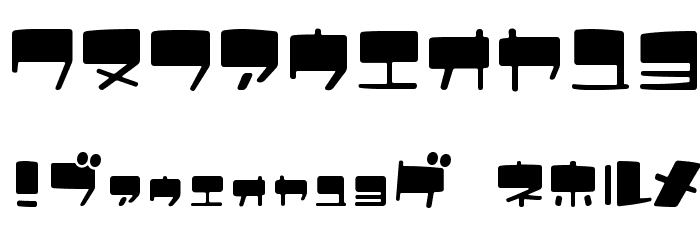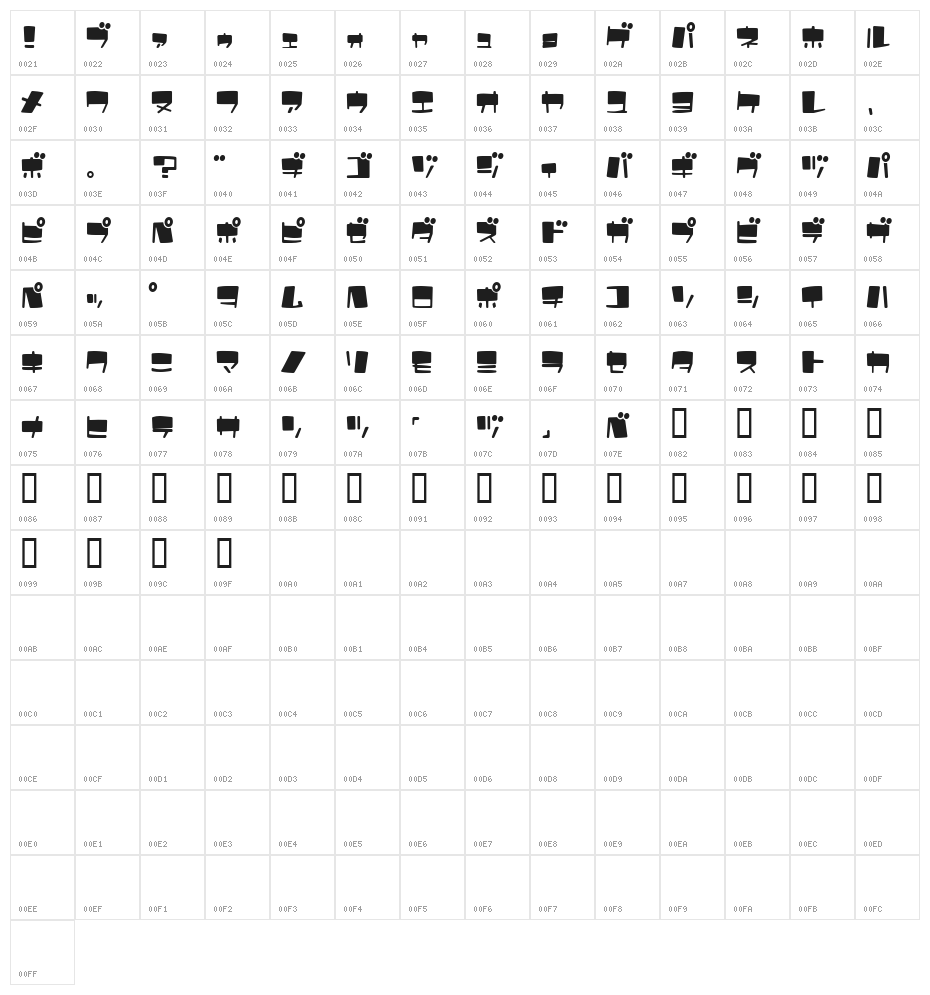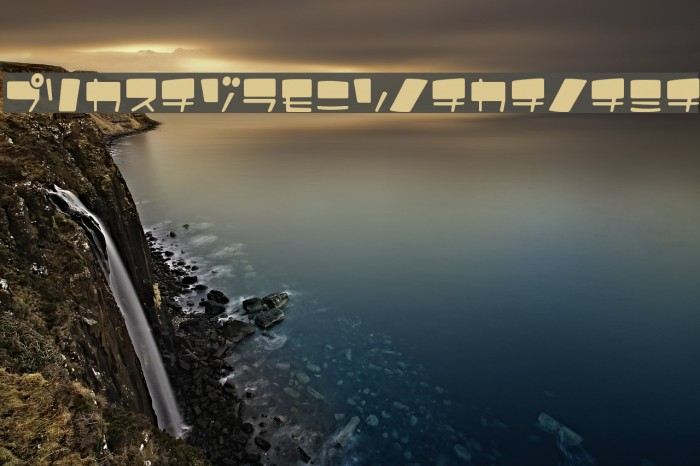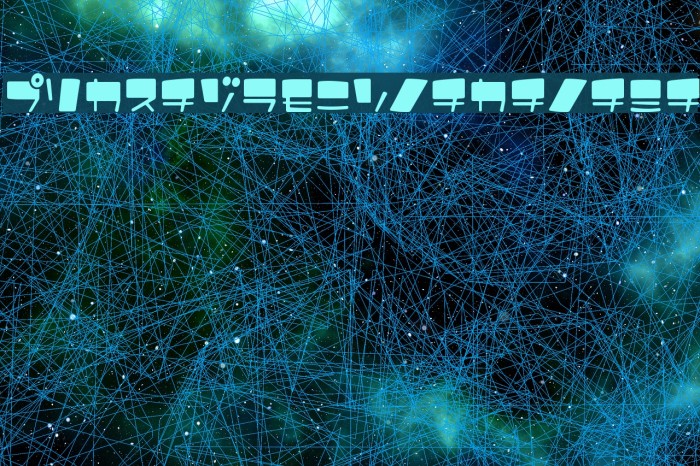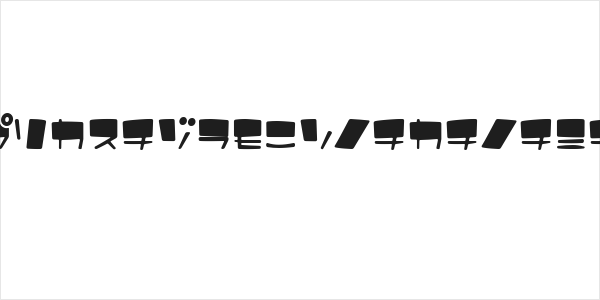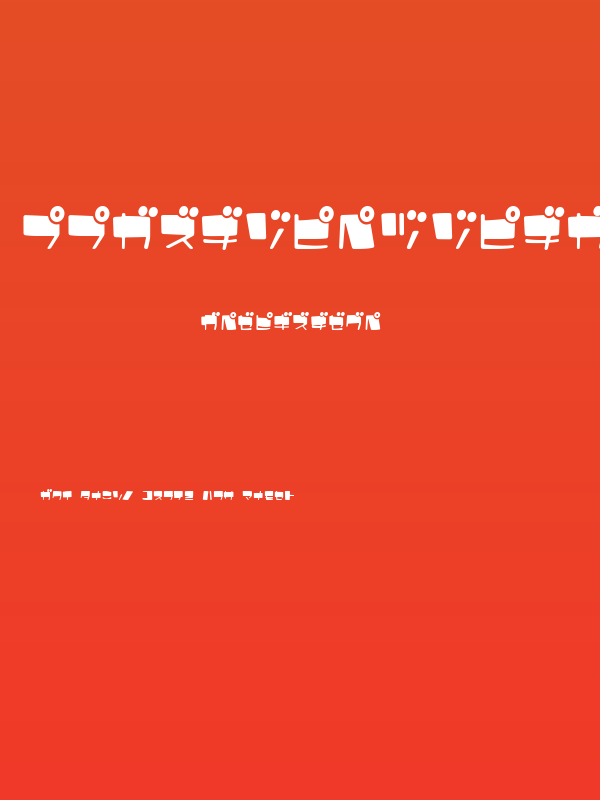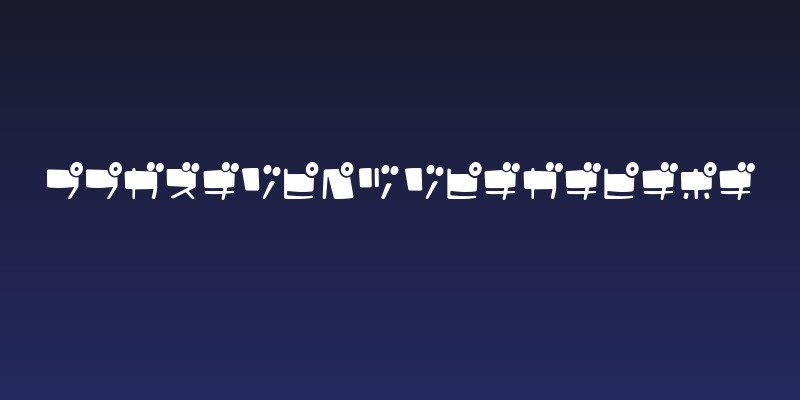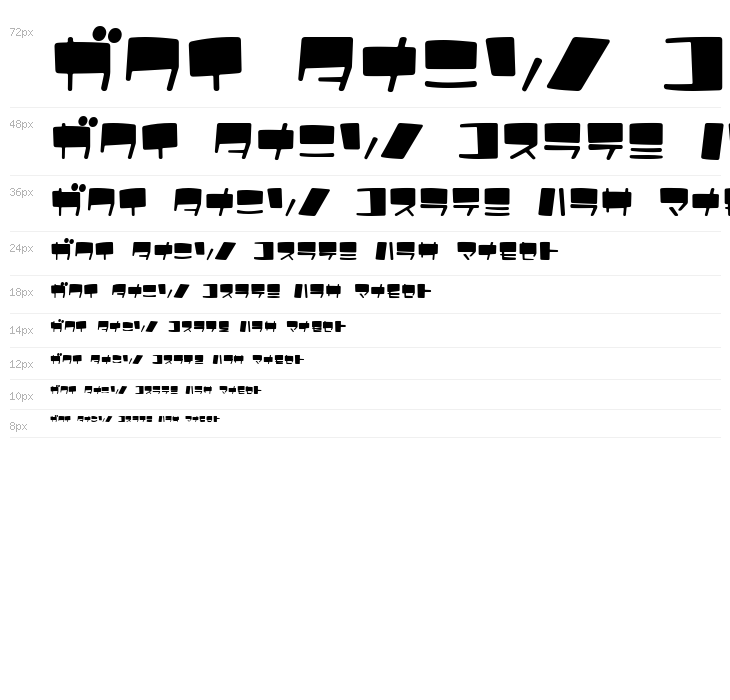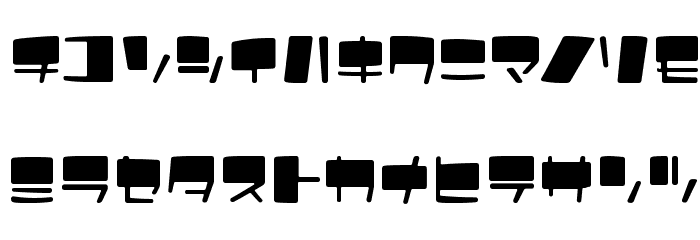
UltraComickatakana Font
UltraComickatakana Description
This font features a playful and bold style, characterized by its thick, rounded strokes and whimsical design. The characters are reminiscent of comic book lettering, with exaggerated curves and a lively appearance. The font's unique style is achieved through its high contrast between thick and thin strokes, giving it a dynamic and energetic feel. The overall look is both modern and fun, making it suitable for creative and informal projects. The spacing between characters is relatively tight, enhancing its compact and cohesive appearance.
| Overall Style | Modern, Fun |